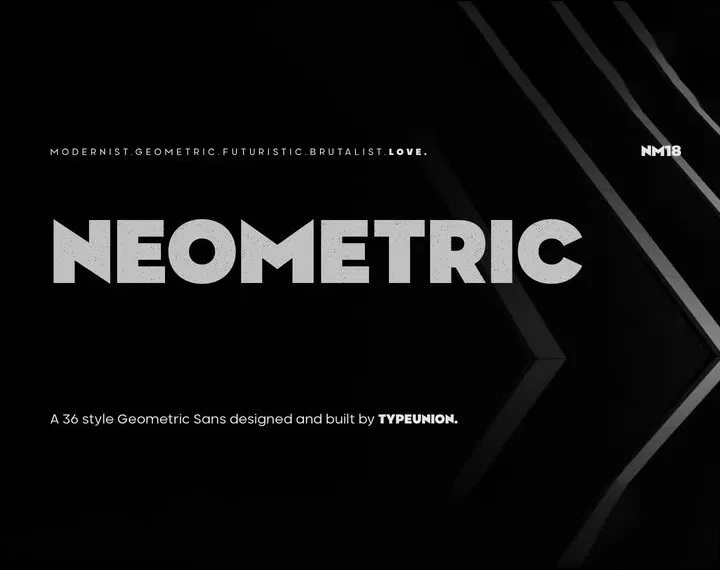
Neometric Font
Neometric is a modern take on the geometric sans serif but with a more humanist approach to its heavier weights for an overall more enhanced visual style. The standard version is unique in that the N & M letters have a sharp apex top creating a look that is powerful and distinctive; ideal for branding for digital or offline usage of any kind.
With extensive European language support and its basic Cyrillic, this font is both visually versatile and very usable for big brands and small companies. It consists of 36 styles consisting of two subtle design variations, each consisting of 9 weights and their italics which can be found below.
Neometric Sans Serif Font Family